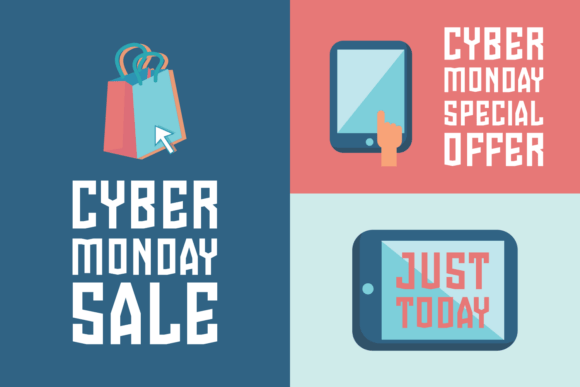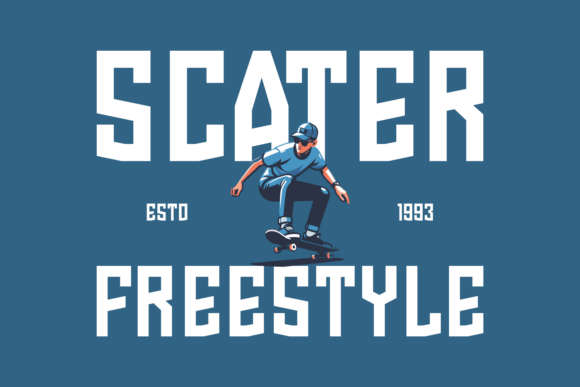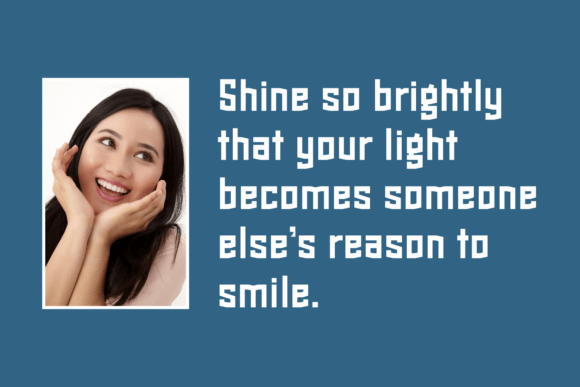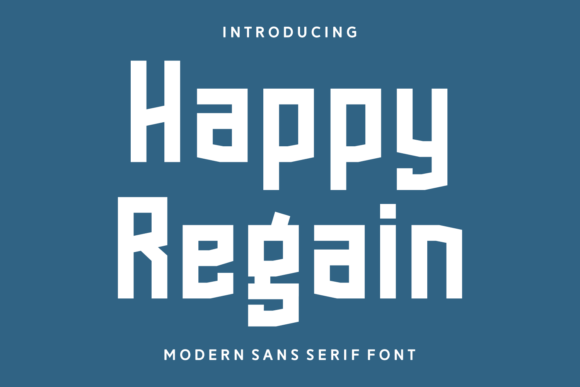
Introduction to Happy Regain Font
Happy Regain is an incredibly unique sans serif font.
Masterfully designed to become a true favorite, this font has the potential to bring each of your creative ideas to the highest level .
Why Choose Happy Regain Font?
Happy Regain Font offers exceptional quality and versatility, making it a valuable addition to your design toolkit. Whether you’re creating for personal projects or commercial use, Happy Regain Font delivers professional results.